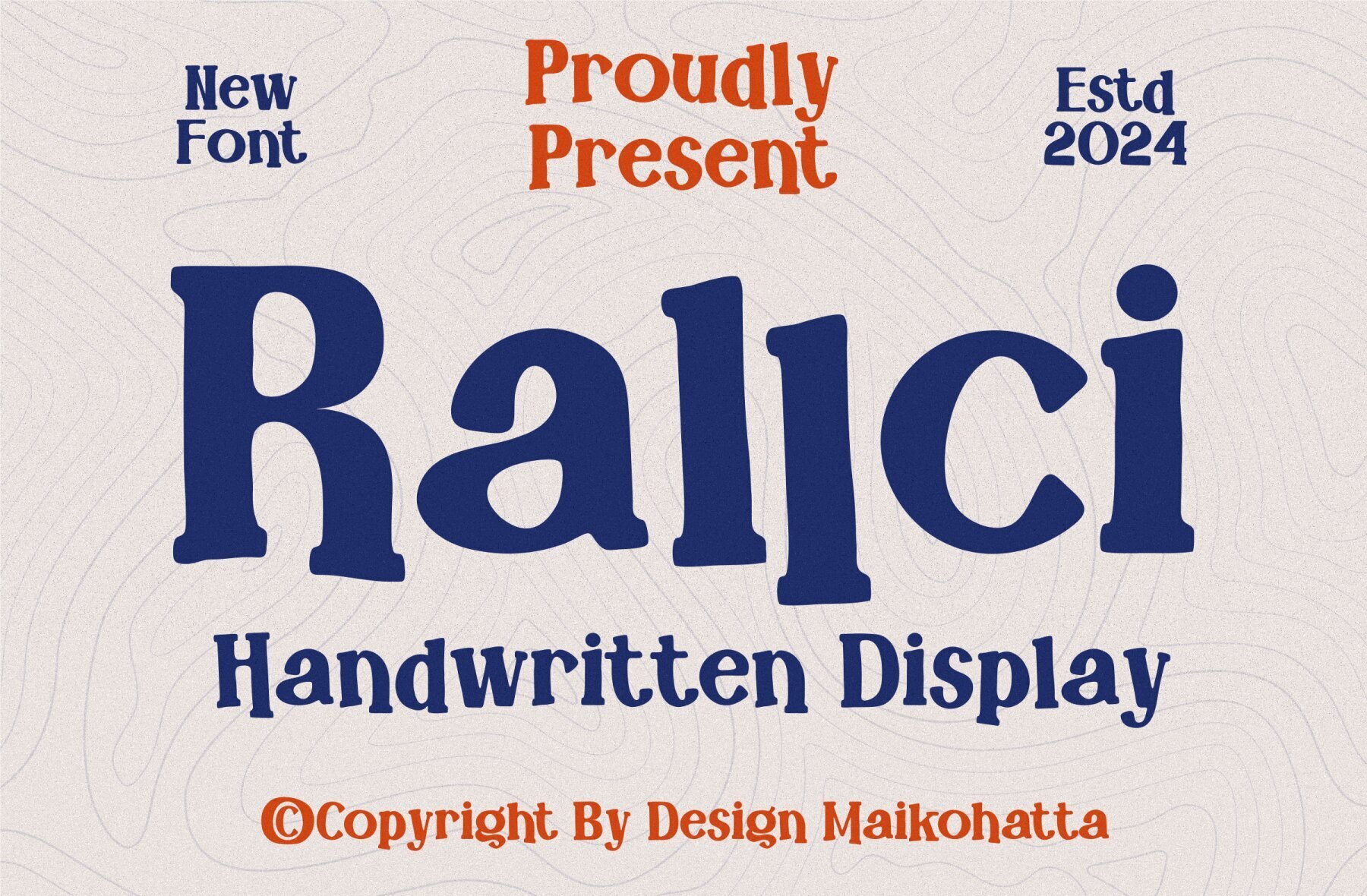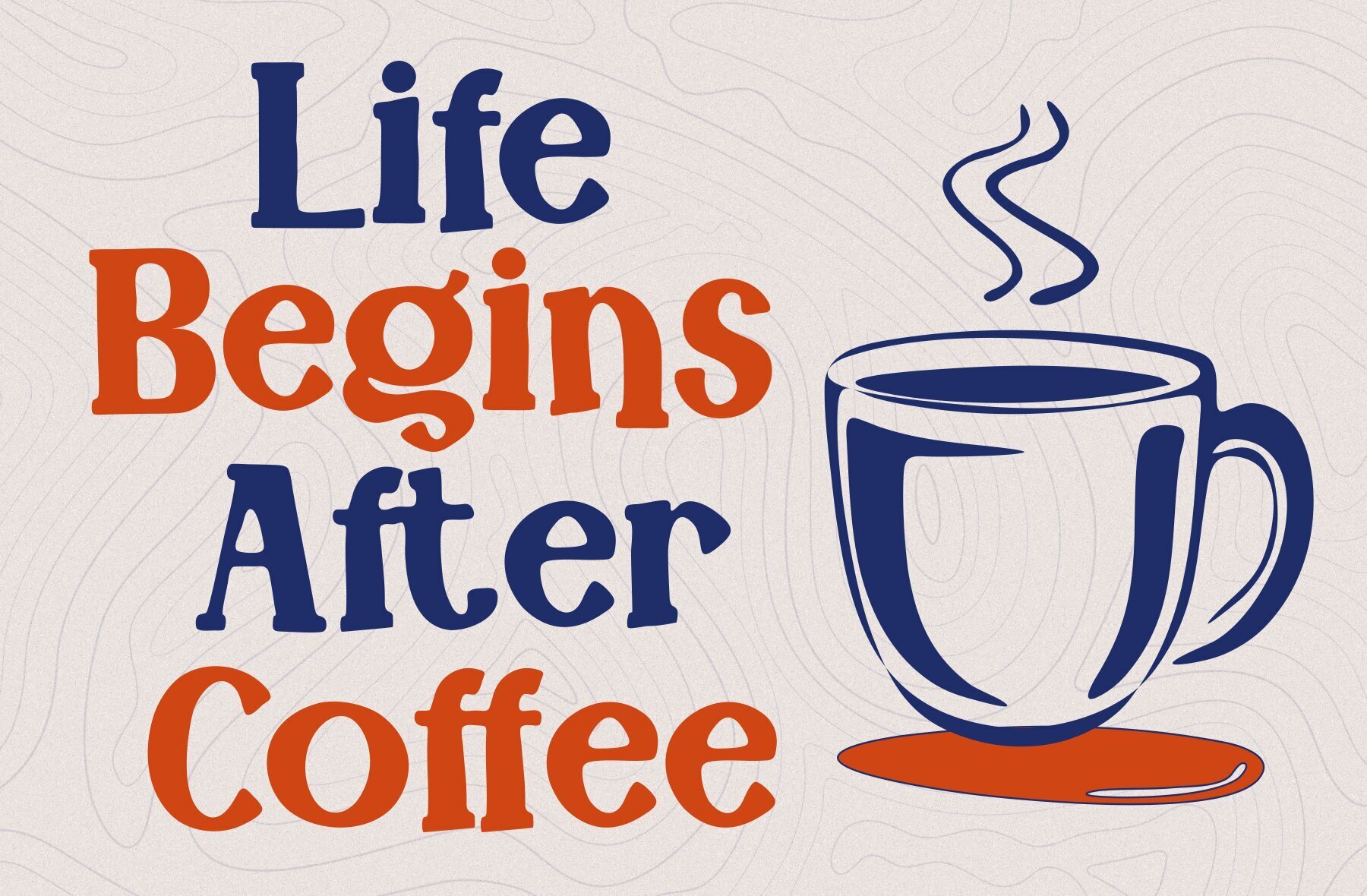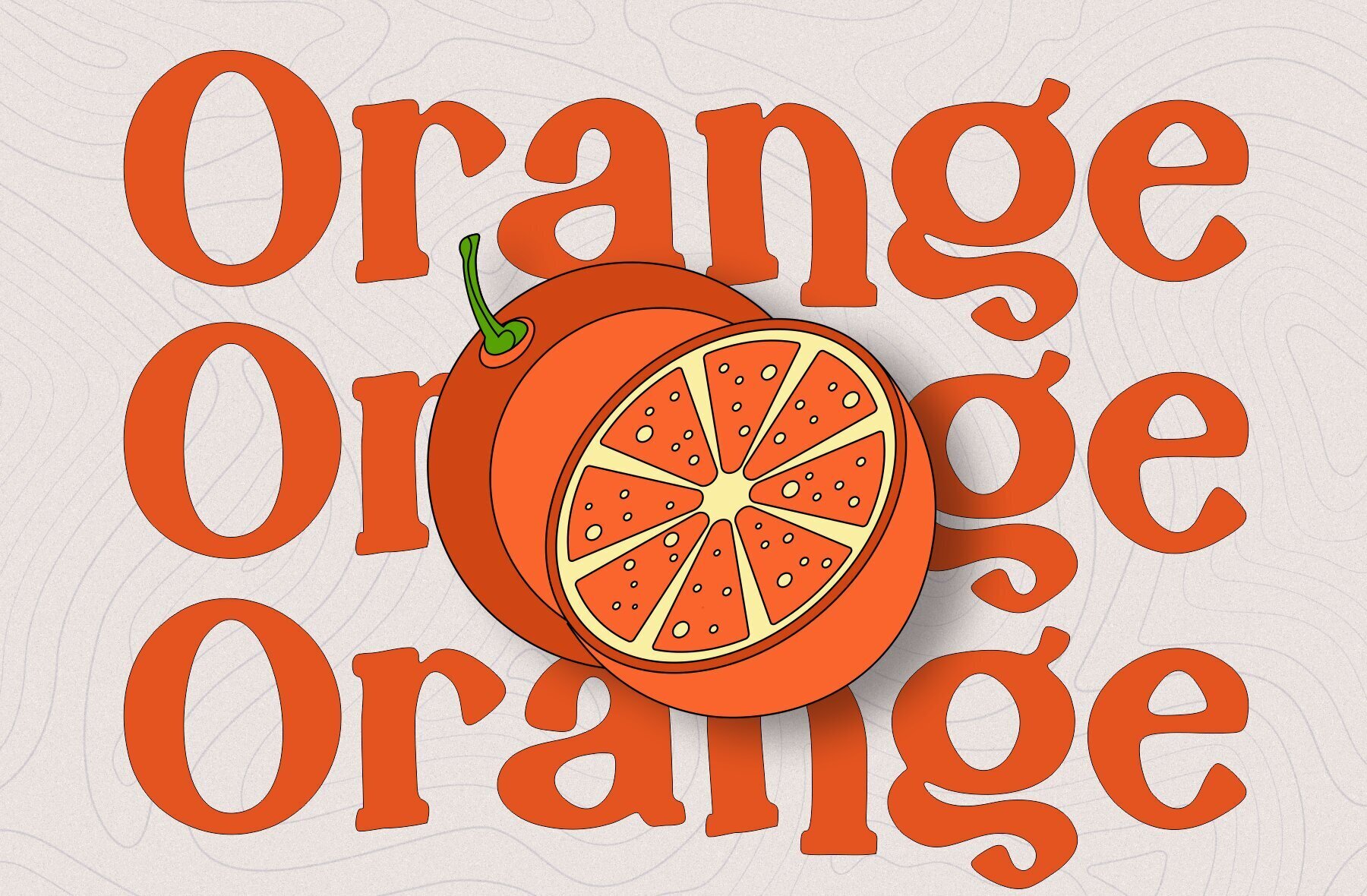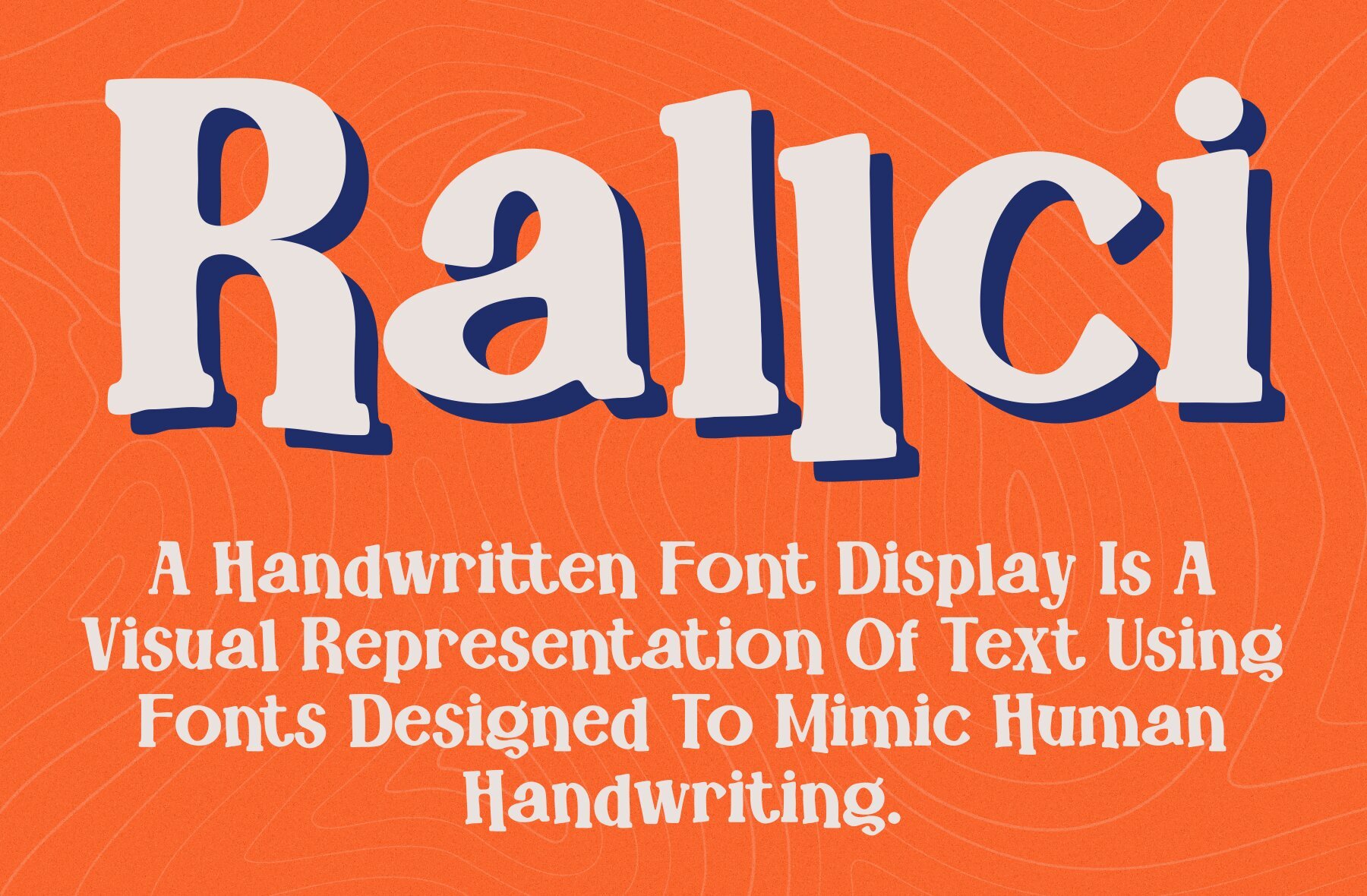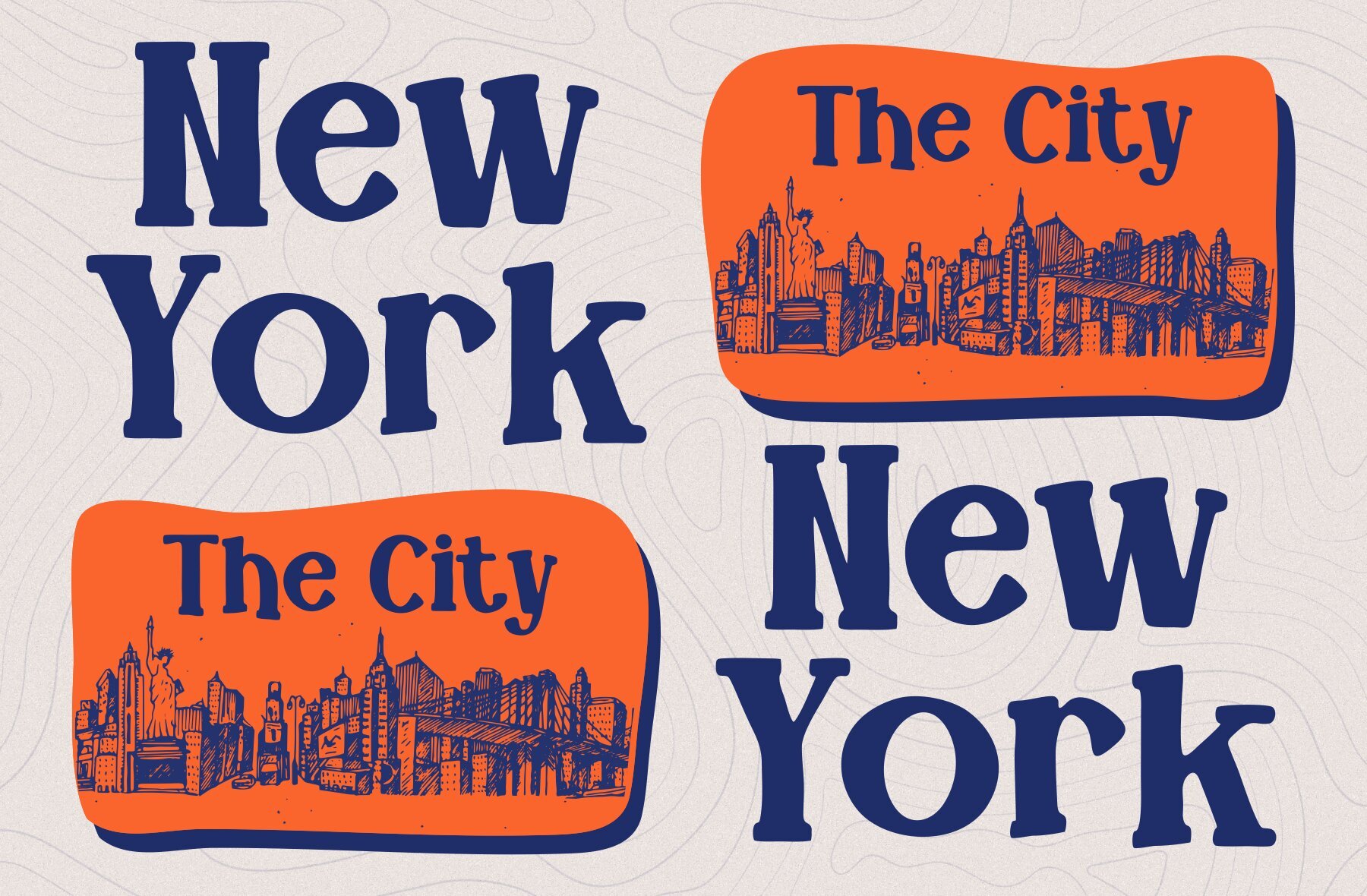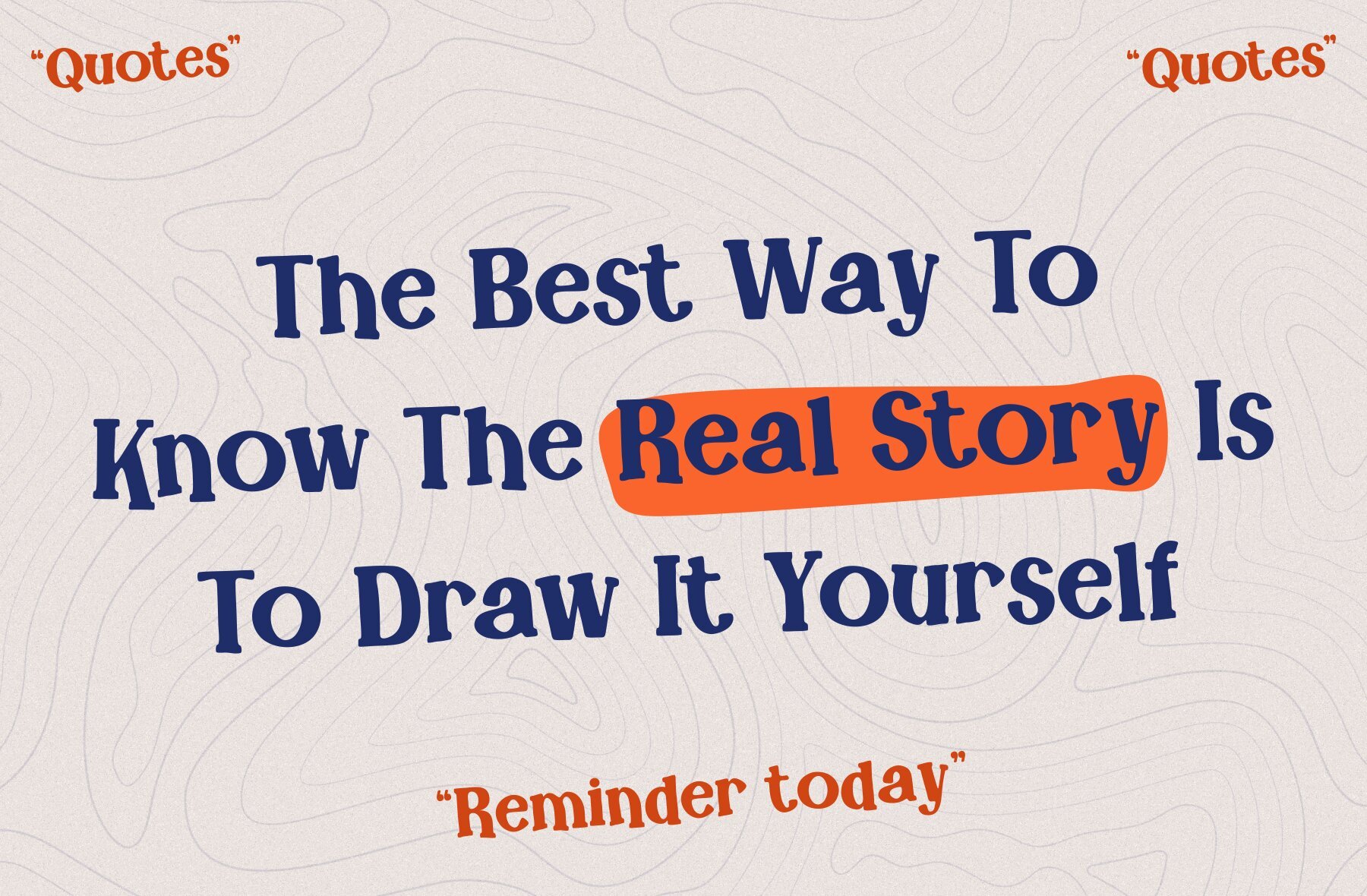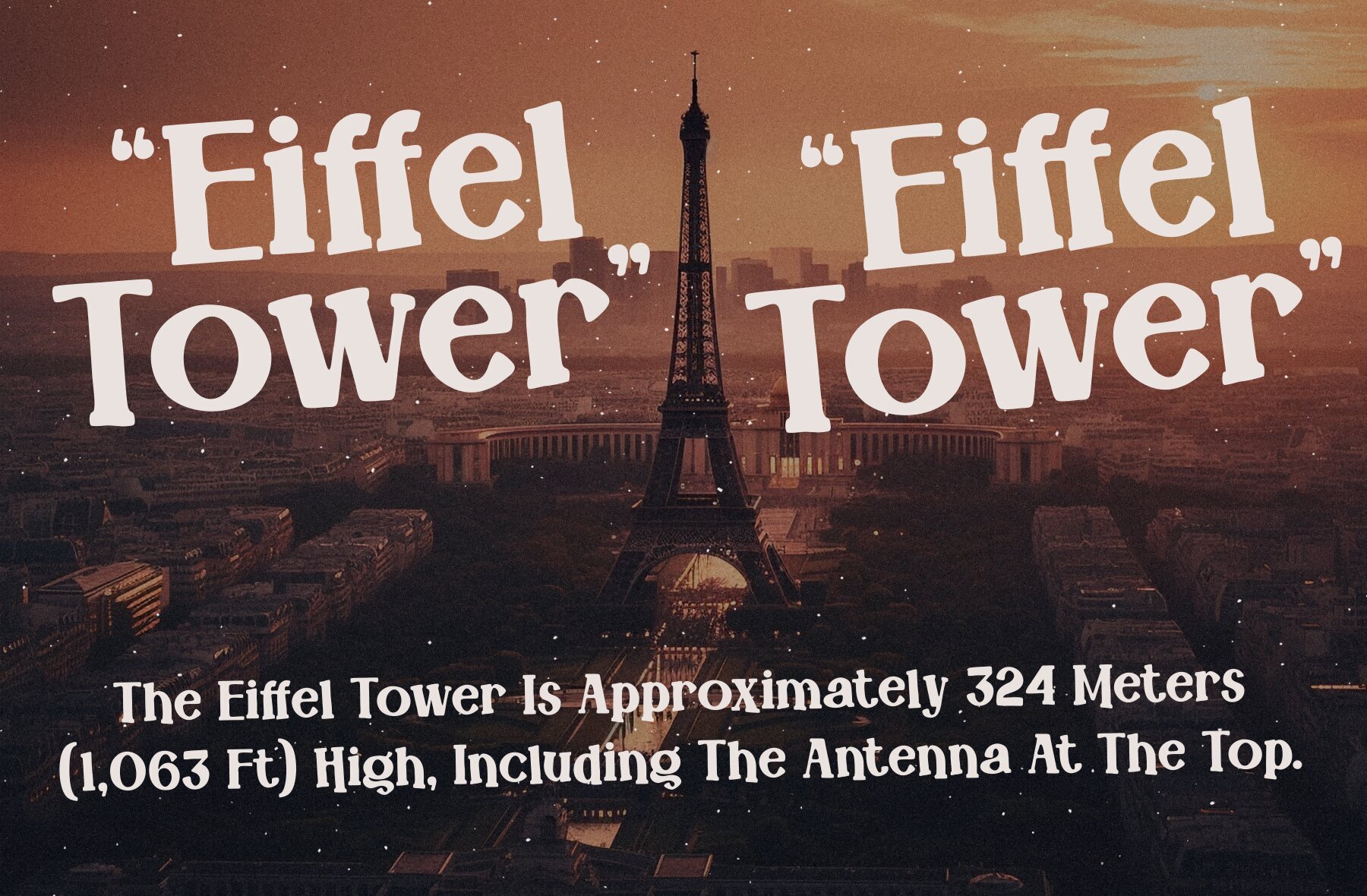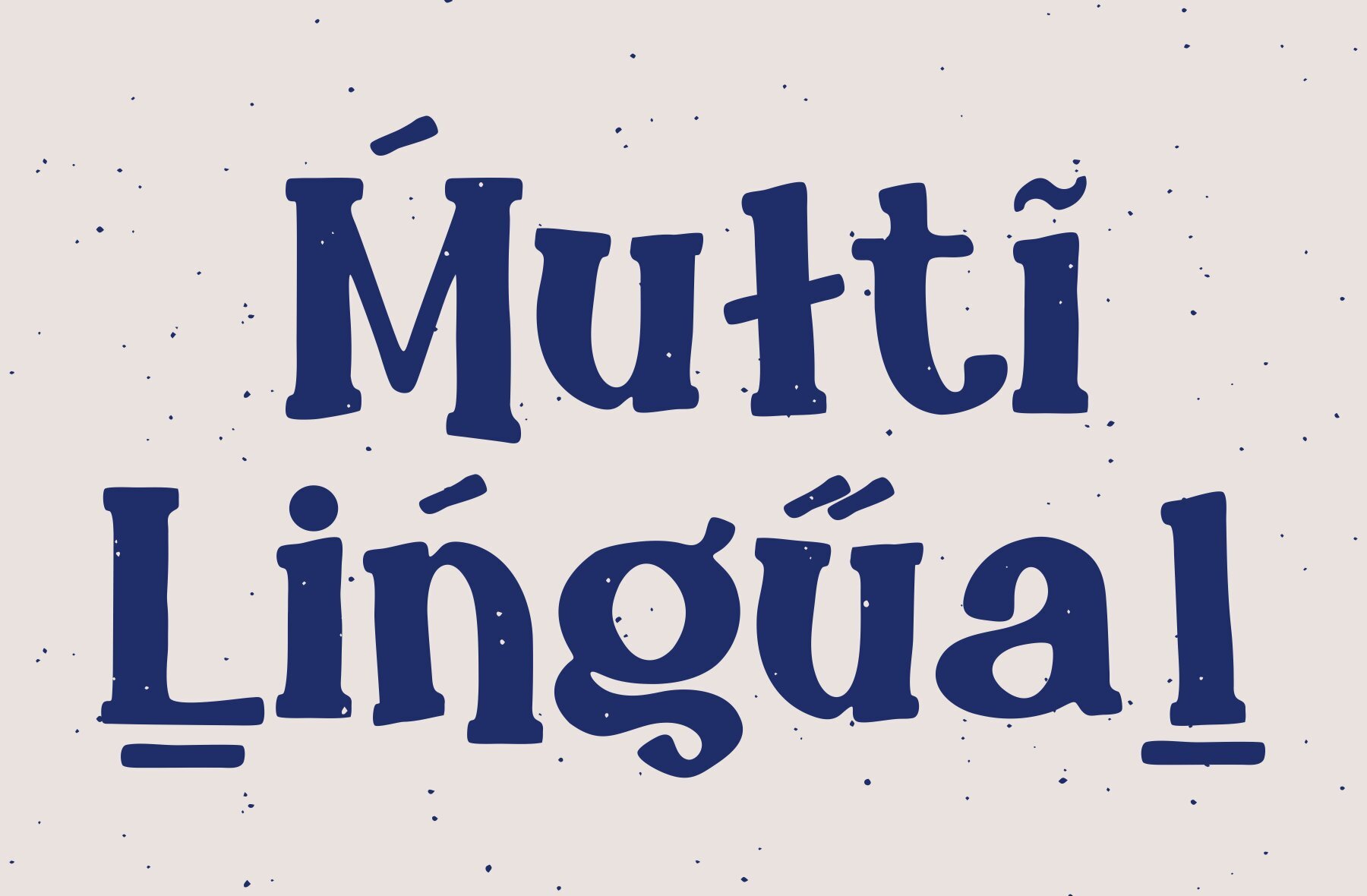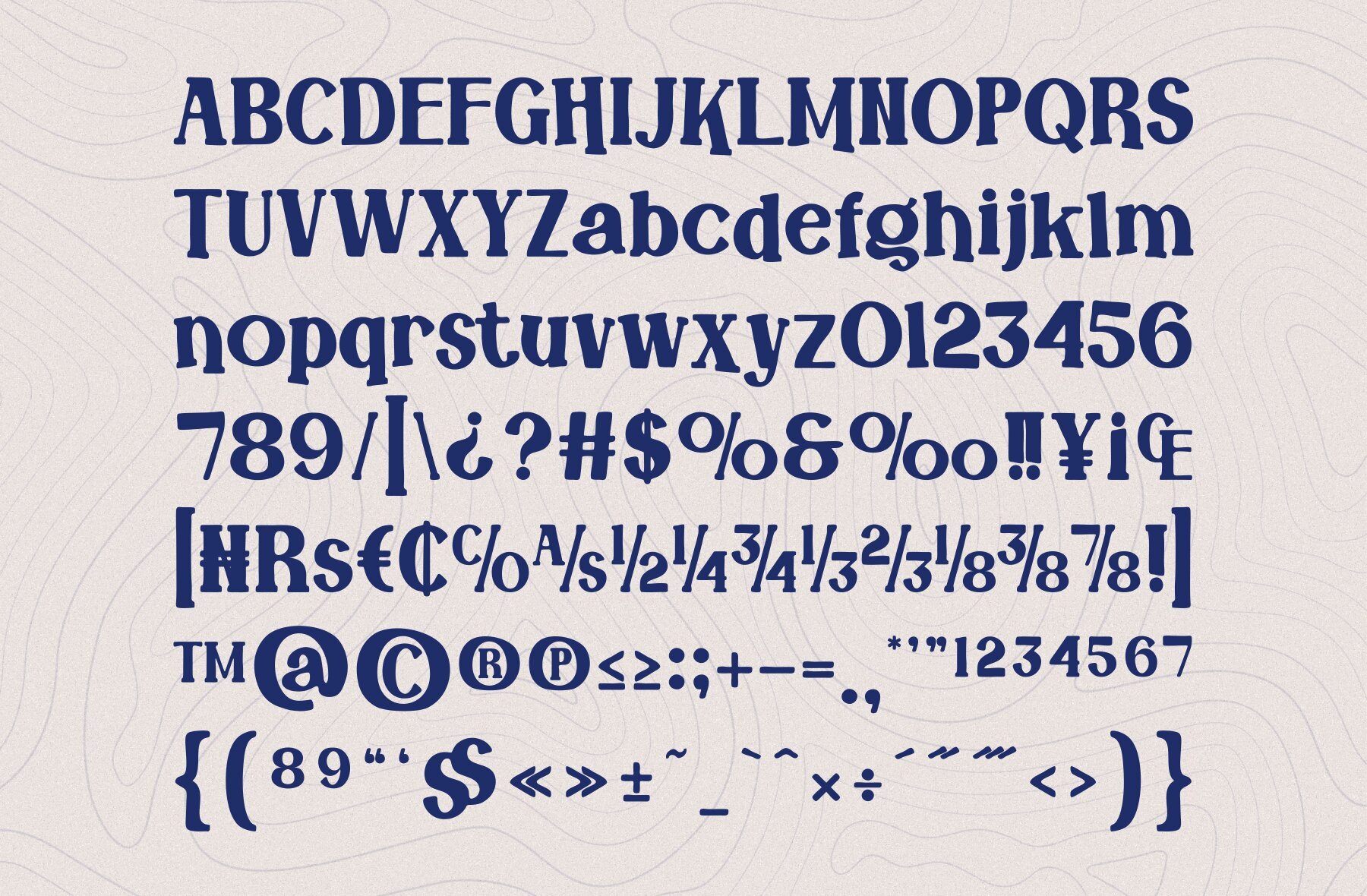
Rallci Font
Rallci is a very flexible choice and can be used in a variety of design contexts. Its ability to provide a clean, professional, contemporary look and its simplicity and visual appeal make this font good for use in the world of graphic design and modern typography.